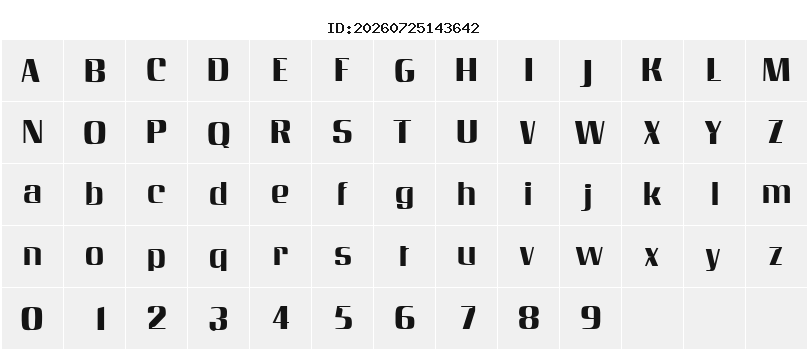
Inverserif DB Preview
• Font Name: Inverserif DB
• Full Font Name: Inverserif Regular DB
About Inverserif DB.ttf
Inverserif DB.ttf is a modern, elegant sans-serif font designed for ultimate readability and visual harmony. Perfect for branding, headlines, web design, and print materials.